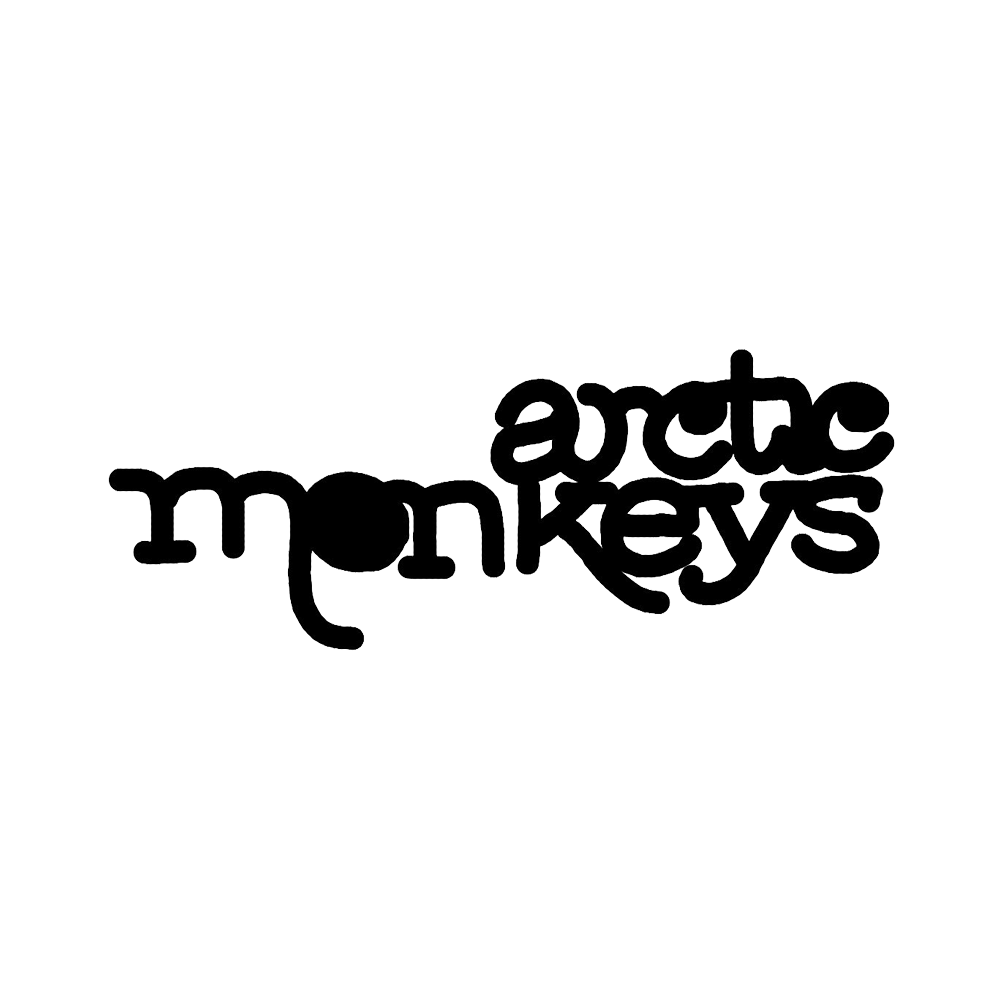
Arctic Monkeys Font
BandArctic Monkeys are an English indie rock band formed in 2002.
The logo above is the first Arctic Monkeys logo, which features the band name in typewriter style lettering. The design is probably hand lettered and the font with similar feel would be Standard Typewriter.
The second logo for the group, as seen from their second studio album, Favourite Worst Nightmare. Letters are distorted and juxtaposed into a trapezoid shape.
The Arctic Monkey logo that is seen on their official website, the design is probably based on Futura ExtraBlack.
The logo that is used on its third studio album, Humbug, released in August, 2009, probably using the font Nimbus Roman No 9 Bold.